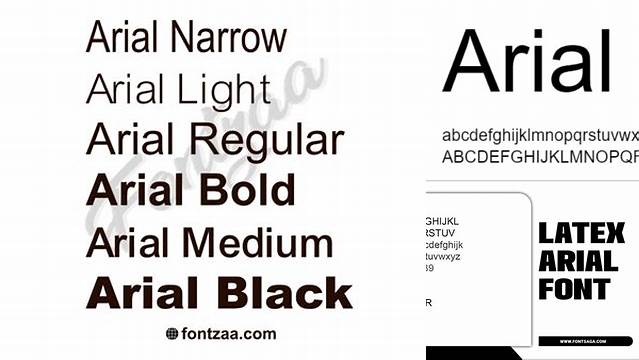
Arial Font: A Comprehensive Guide
Let's dive deep into the world of Arial font, guys! This typeface is a staple in the design world, and for good reason. It's versatile, legible, and widely available. But there's more to Arial than meets the eye. We're going to explore everything from its history and characteristics to its best uses and common alternatives. So, buckle up and get ready for a fontastic journey!
The History and Evolution of Arial
Understanding the history of Arial font helps us appreciate its design and context. Developed in 1982 by a team at Monotype, led by Robin Nicholas and Patricia Saunders, Arial was initially created as a system font for IBM's laser printers. The goal was to create a typeface that was metrically compatible with Helvetica, a popular and well-established font at the time. This compatibility allowed for easy document portability across different systems. However, Arial is not a direct copy of Helvetica; it possesses distinct characteristics that differentiate it, which we'll explore later. The evolution of Arial has seen it become a default font in many operating systems, making it one of the most ubiquitous typefaces in the world. Its journey from a system font to a design staple is a testament to its versatility and legibility.
Arial's Origins and Design Influences
The origins of Arial font are fascinating, and its design influences are rooted in the need for a functional and easily readable typeface. The designers drew inspiration from the neo-grotesque style, which is characterized by clean lines, uniform strokes, and a simple, sans-serif structure. This style was popular in the mid-20th century and was seen as a modern and efficient way to communicate visually. While Arial shares similarities with Helvetica, its design is unique, featuring subtle differences in letterforms and spacing. These nuances contribute to Arial's distinctive personality and impact its overall readability. Understanding these influences helps us appreciate the thought and effort that went into creating this ubiquitous font. The design brief emphasized clarity and neutrality, ensuring that Arial could be used in a wide range of applications without drawing undue attention to itself. This focus on functionality has contributed to Arial's enduring popularity.
Key Milestones in Arial's Development
The development of Arial font involved several key milestones that shaped its current form and widespread adoption. One of the earliest milestones was its inclusion as a system font in Windows 3.1 in 1992. This integration propelled Arial into the mainstream, making it accessible to millions of users worldwide. The font's compatibility with various operating systems and applications further solidified its position as a default choice for many designers and businesses. Over the years, Arial has been refined and expanded, with different weights and styles added to its family. These variations have increased its versatility, allowing it to be used in a broader range of design projects. From its initial creation for IBM laser printers to its current status as a ubiquitous typeface, Arial's journey is a story of adaptation and widespread acceptance. Each milestone has contributed to its legacy as a reliable and functional font.
From IBM to Microsoft: Arial's Rise to Prominence
Arial font's rise to prominence is closely tied to its adoption by major tech companies like IBM and Microsoft. Initially designed for IBM's laser printers, Arial gained significant traction when Microsoft licensed it as a system font for Windows. This strategic decision placed Arial in front of a massive user base, making it a default choice for word processing, web design, and other applications. Its inclusion in Microsoft Office further cemented its importance, as it became a standard option for creating documents and presentations. The font's availability across different platforms and software contributed to its widespread use. From business reports to personal letters, Arial became the go-to font for many. This journey from a relatively obscure typeface to a globally recognized font is a remarkable success story, driven by its functionality and accessibility.
Arial Font Characteristics and Features
Arial font has several distinct characteristics and features that contribute to its widespread use. Its clean, sans-serif design makes it highly legible, making it suitable for a variety of applications, from body text to headlines. The uniform stroke weight and simple letterforms ensure clarity and readability, even at smaller sizes. Arial's neutral appearance means it doesn't draw undue attention to itself, making it a versatile choice for projects where the content is the primary focus. The font family includes various weights and styles, such as bold, italic, and condensed, providing flexibility for different design needs. Understanding these characteristics helps designers make informed decisions about when and how to use Arial effectively. Its design is both functional and aesthetically pleasing, making it a reliable choice for a wide range of projects.
Distinguishing Features of Arial's Letterforms
To truly appreciate Arial font, it's essential to understand the distinguishing features of its letterforms. While often compared to Helvetica, Arial has unique characteristics that set it apart. For example, the terminals (the ends of the strokes) in Arial are often cut at an angle, while those in Helvetica are typically horizontal. The lowercase 'g' in Arial has a more open counter (the enclosed space within the letter) compared to Helvetica. These subtle differences contribute to Arial's overall appearance and readability. Examining the letterforms closely reveals the attention to detail in its design. The slight variations in shape and spacing impact the font's texture and visual rhythm. These nuances might seem minor, but they play a significant role in how the font is perceived and used. Designers often choose Arial for its clear and straightforward letterforms, which ensure legibility in various contexts.
Arial vs. Helvetica: Key Differences Explained
The debate between Arial font and Helvetica is a classic one in the design world. While they share many similarities, there are key differences that impact their suitability for different projects. Helvetica has a more uniform stroke weight and tighter spacing, giving it a more compact and solid appearance. Arial, on the other hand, has slightly wider proportions and angled terminals, which can make it appear more open and readable. Helvetica is often perceived as more sophisticated and refined, while Arial is seen as more utilitarian and straightforward. The choice between the two often comes down to personal preference and the specific requirements of the design project. Understanding these differences allows designers to make informed decisions about which font best suits their needs. Both fonts have their strengths and weaknesses, and knowing them can help in creating effective and visually appealing designs.
The Impact of Stroke Weight and Spacing in Arial
The stroke weight and spacing in Arial font play a crucial role in its overall appearance and readability. Arial's relatively uniform stroke weight contributes to its clean and consistent look. This consistency ensures that each letterform is clear and easily distinguishable, even at smaller sizes. The spacing between letters and words in Arial is designed to enhance readability, preventing the text from feeling too crowded or too sparse. This careful attention to spacing improves the reading experience, making it easier for the eye to track the text. The balance between stroke weight and spacing is a key factor in Arial's success as a versatile and legible typeface. Designers often appreciate Arial's well-proportioned spacing, which makes it suitable for both body text and headlines. These subtle design elements contribute to Arial's overall functionality and aesthetic appeal.
Best Uses for Arial Font
Arial font is incredibly versatile, making it suitable for a wide range of applications. Its clean and legible design makes it an excellent choice for body text in documents, websites, and print materials. Arial also works well for headlines and subheadings, providing clarity and readability. Its neutral appearance makes it a good option for projects where the content should take center stage, such as technical documents, reports, and presentations. Arial's availability across different platforms and software ensures consistency, making it a reliable choice for projects that need to be shared and viewed by a wide audience. Whether you're designing a website, creating a brochure, or writing a report, Arial is a font that you can count on to deliver clear and effective communication.
Arial in Body Text: Legibility and Readability
When it comes to body text, Arial font shines due to its legibility and readability. The clean, sans-serif design ensures that each letter is easily distinguishable, even at smaller font sizes. This clarity is crucial for maintaining readability in long blocks of text. Arial's uniform stroke weight and consistent letterforms contribute to a smooth reading experience, reducing eye strain and improving comprehension. Its neutral appearance means that it doesn't distract the reader from the content, allowing the message to come through clearly. Arial's widespread availability also makes it a practical choice for body text, ensuring that documents will display correctly across different devices and platforms. Whether you're writing a novel, creating a report, or designing a website, Arial is a reliable option for ensuring your text is easy to read.
Using Arial for Headlines and Subheadings
Arial font is also a strong contender for headlines and subheadings. Its clean and straightforward design makes it easily noticeable and readable, even at larger sizes. The various weights available in the Arial family, such as bold and black, provide options for creating emphasis and visual hierarchy. Arial's clarity ensures that headlines stand out without being overly distracting, maintaining a professional and polished look. Its versatility allows it to be paired with a variety of other fonts, making it a flexible choice for different design styles. Whether you're designing a poster, creating a presentation, or laying out a magazine, Arial can help you create clear and impactful headlines that capture the reader's attention. Its simplicity and readability make it a timeless choice for any heading needs.
Arial in Web Design: A Safe and Reliable Choice
In web design, Arial font is often considered a safe and reliable choice. Its widespread availability across different operating systems and browsers means that it's likely to display correctly for most users. This cross-platform compatibility is crucial for ensuring a consistent user experience. Arial's legibility and readability also make it well-suited for web content, where clarity is paramount. Its clean design ensures that text is easy to read on screens of various sizes and resolutions. While some designers might find Arial to be a bit bland, its neutrality can be an advantage, allowing the content and other design elements to take center stage. Whether you're designing a simple blog or a complex e-commerce site, Arial can provide a solid foundation for your typography. Its reliability and readability make it a go-to font for many web designers.
Print Design with Arial: Versatility in Action
Arial font's versatility extends to print design, where it performs admirably in a variety of applications. Its clean and legible design makes it suitable for everything from business cards and brochures to posters and books. Arial's various weights and styles provide flexibility for creating visual hierarchy and emphasis in print layouts. Its neutrality allows it to be paired with a wide range of other fonts and design elements, making it a versatile choice for different print projects. Whether you're designing a corporate report or a creative marketing campaign, Arial can help you achieve a professional and polished look. Its readability ensures that printed materials are easy to read and understand, regardless of the medium. Arial's enduring popularity in print design is a testament to its functionality and aesthetic appeal.
Arial Font Alternatives and Similar Typefaces
While Arial font is a solid choice, exploring alternatives and similar typefaces can enhance your design palette. Several fonts share characteristics with Arial, offering slight variations in style and appearance. Helvetica, as we've discussed, is a close relative, with a more refined and compact feel. Other alternatives include Univers, Swiss 721, and Frutiger, each with its own nuances. San Francisco, a system font designed by Apple, is another contemporary option with excellent legibility. Choosing an alternative depends on the specific needs of your project and the desired aesthetic. Sometimes a subtle change in typeface can make a significant difference in the overall look and feel of a design. Exploring different options allows you to find the perfect font for each project.
Helvetica: The Classic Alternative to Arial
Helvetica is often considered the classic alternative to Arial font, and for good reason. It's a highly respected typeface with a long history and a reputation for clarity and sophistication. Helvetica's uniform stroke weight and tight spacing give it a distinct appearance compared to Arial. Many designers prefer Helvetica for its clean lines and timeless aesthetic. While both fonts are sans-serif and highly legible, Helvetica often conveys a sense of elegance and professionalism. The choice between Arial and Helvetica often comes down to personal preference and the specific requirements of the project. Helvetica is a versatile font that works well in a variety of applications, from corporate branding to editorial design. Its enduring popularity is a testament to its quality and timeless appeal.
Univers: A Geometric Sans-Serif Option
Univers is another excellent alternative to Arial font, offering a more geometric and structured appearance. Designed by Adrian Frutiger, Univers is known for its clean lines and consistent proportions. Its systematic design approach provides a cohesive and harmonious look across different weights and styles. Univers is often used in corporate identity and branding projects, where its precision and clarity are highly valued. Its versatility makes it suitable for both text and display purposes. While Arial is more utilitarian, Univers has a more technical and precise feel. The choice between the two depends on the desired aesthetic and the specific needs of the project. Univers is a sophisticated and reliable typeface that can add a touch of modernity to any design.
Frutiger: Humanist Sans-Serif Choice
Frutiger is a humanist sans-serif typeface that provides a warmer and more approachable alternative to Arial font. Designed by Adrian Frutiger, the same designer as Univers, Frutiger is known for its excellent legibility and readability, particularly in signage and wayfinding systems. Its open letterforms and generous spacing make it easy to read from a distance. Frutiger has a more organic and friendly feel compared to Arial's more neutral appearance. Its humanistic qualities make it a good choice for projects that require a personal touch. While Arial is more commonly used in body text, Frutiger excels in display settings and environmental graphics. The distinct personality of Frutiger can add character and warmth to a design, making it a popular choice for a variety of applications.
Open Sans: A Modern and Open Alternative
Open Sans is a modern and open alternative to Arial font, designed by Steve Matteson. It's a humanist sans-serif typeface optimized for print, web, and mobile interfaces, making it a versatile choice for digital design. Open Sans has a neutral yet friendly appearance, with slightly wider proportions and open letterforms that enhance readability. It's a popular choice for website body text due to its clarity and legibility on screens. Open Sans is part of the Google Fonts library, making it easily accessible and free to use in a wide range of projects. Its clean and contemporary design makes it a good fit for modern websites and applications. While Arial is a reliable standby, Open Sans offers a fresh and updated look that can add a touch of modernity to any design.
Arial Font in Branding and Corporate Identity
Arial font has found its place in branding and corporate identity, offering a clean and professional look. Its neutrality makes it suitable for a wide range of industries and applications. Many companies choose Arial for its legibility and readability, ensuring that their brand message is communicated clearly. Arial's versatility allows it to be used in various branding materials, from logos and websites to brochures and business cards. While some might consider Arial to be a safe choice, its reliability and widespread availability make it a practical option for businesses of all sizes. The consistency provided by Arial can help maintain a unified brand image across different platforms and media. Arial's clean lines and straightforward appearance convey a sense of stability and trustworthiness, making it a popular choice for corporate communications.
Arial's Neutrality: A Benefit for Brand Communication
Arial font's neutrality is a significant benefit for brand communication. Its clean and unassuming design ensures that the font doesn't overshadow the brand's message. This neutrality allows the content and other design elements to take center stage, ensuring that the brand's voice is heard clearly. Arial's lack of strong personality means it can be adapted to fit a wide range of brand identities, from conservative to modern. Its legibility and readability are crucial for ensuring that the brand's message is easily understood by the target audience. Arial's neutrality also makes it a versatile choice for international branding, as it doesn't carry any cultural connotations that might be inappropriate in certain markets. Its straightforward appearance conveys professionalism and reliability, making it a solid choice for corporate communications.
Maintaining Brand Consistency with Arial
Maintaining brand consistency is crucial, and Arial font can be a valuable tool in achieving this goal. Its widespread availability ensures that the font will display correctly across different platforms and devices, maintaining a consistent look and feel for the brand. Arial's clean and legible design contributes to a professional and unified brand image. Its neutrality allows it to be used in various branding materials, from online to print, without clashing with other design elements. Using Arial consistently in all brand communications helps build brand recognition and reinforces the brand's identity. Its reliability and adaptability make it a practical choice for businesses that need to maintain a consistent brand presence across different channels. Arial's simplicity ensures that the brand's message is always clear and easily understood.
Arial in Logo Design: Considerations and Limitations
While Arial font can be used in logo design, there are considerations and limitations to keep in mind. Its neutrality and widespread use mean that it might not be the most unique or distinctive choice for a logo. A logo is a key element of a brand's identity, and it should stand out and be memorable. Arial's simplicity can be an advantage in some cases, but it might not be suitable for brands that want to convey a strong personality or unique identity. Designers often prefer more distinctive typefaces for logos, as they can help create a more memorable and impactful brand image. However, Arial can be a good option for companies that prioritize legibility and clarity in their logo. Its clean lines and straightforward appearance ensure that the logo is easily readable, even at small sizes. When using Arial in logo design, it's important to consider how it aligns with the brand's overall identity and messaging.
Typography Pairings: What Fonts Work Well with Arial?
Choosing the right typography pairings can enhance the overall design and readability of a project. Arial font pairs well with a variety of other typefaces, thanks to its neutrality. Serif fonts like Times New Roman, Georgia, and Merriweather can create a classic and sophisticated contrast with Arial. Sans-serif fonts like Open Sans, Lato, and Roboto offer a more contemporary and harmonious pairing. The choice of pairing depends on the desired aesthetic and the specific requirements of the project. A good typography pairing should create visual interest while maintaining legibility and readability. Arial's versatility allows it to be paired with both traditional and modern typefaces, making it a flexible choice for different design styles. Experimenting with different pairings can help you find the perfect combination for your project.
Arial Font Licensing and Availability
Understanding the licensing and availability of Arial font is crucial for ensuring its proper use in various projects. Arial is a proprietary font, meaning it's protected by copyright and requires a license for commercial use. However, it comes pre-installed on many operating systems, such as Windows and macOS, making it readily available for personal and professional use. This widespread availability has contributed to its popularity and ubiquity. When using Arial in commercial projects, it's important to ensure that you comply with the licensing terms. These terms typically allow for the use of the font in documents, websites, and other materials, but they may restrict certain uses, such as embedding the font in software applications. Understanding these limitations helps you avoid copyright infringement and ensure that you're using Arial legally and ethically. Arial's licensing model has contributed to its widespread adoption, making it a practical choice for businesses and individuals alike.
Arial's Status as a System Font
Arial font's status as a system font is a key factor in its widespread use and availability. Being pre-installed on major operating systems like Windows and macOS means that most users have Arial readily available on their computers. This accessibility makes it a reliable choice for projects that need to be shared and viewed across different platforms. The fact that Arial is a system font also means that it's less likely to be substituted with a different font when a document is opened on a different computer. This consistency is crucial for maintaining the intended design and layout of a project. Arial's status as a system font has made it a default choice for many users, contributing to its ubiquity in the design world. Its reliability and accessibility make it a practical choice for a wide range of applications.
Commercial Use of Arial: Licensing Considerations
When using Arial font for commercial purposes, it's important to consider the licensing terms. Arial is a proprietary font, and its use is subject to the terms outlined in the license agreement. Typically, the license allows for the use of Arial in documents, websites, and other materials created for commercial purposes. However, there may be restrictions on certain uses, such as embedding the font in software applications or redistributing it. It's crucial to review the licensing agreement to ensure that you're complying with the terms. Using Arial without the appropriate license can lead to legal issues and penalties. Understanding the licensing considerations helps you use Arial responsibly and ethically in your commercial projects. Arial's licensing model has contributed to its widespread adoption, but it's important to respect the rights of the font's creators and adhere to the licensing terms.
Alternatives for Free and Open-Source Projects
For free and open-source projects, there are several alternatives to Arial font that offer similar characteristics and functionality. Open Sans, Roboto, and Lato are popular choices that are freely available under open-source licenses. These fonts are designed to be highly legible and readable, making them suitable for a wide range of applications. They also offer good cross-platform compatibility, ensuring that they display correctly on different devices and operating systems. Using open-source fonts can be a good way to reduce costs and ensure that your project is accessible to a wide audience. These fonts also provide flexibility and freedom, as they can be modified and redistributed under the terms of their respective licenses. Choosing an open-source alternative to Arial can be a practical and ethical choice for projects that prioritize freedom and accessibility. Open Sans, Roboto, and Lato are all excellent options that offer similar qualities to Arial.
Where to Download Arial Font (Legally)
Since Arial font is a proprietary font, it doesn't have an official direct download link for legal reasons. However, Arial typically comes pre-installed with most operating systems like Windows and macOS. If you have a licensed version of these operating systems, you already have Arial available for use. For commercial projects, it's crucial to ensure you're using a licensed copy of the operating system to legally use Arial. There are also options to purchase licenses for Arial directly from font foundries, such as Monotype, if you need it for specific purposes like embedding in applications. Avoid downloading Arial from unofficial websites as these downloads may contain malware or violate copyright laws. Always ensure you're using fonts legally to support the designers and foundries that create them.
Common Misconceptions About Arial Font
There are several common misconceptions about Arial font that are worth addressing. One of the most prevalent misconceptions is that Arial is a direct copy of Helvetica. While they share similarities, Arial has distinct characteristics that set it apart. Another misconception is that Arial is a less professional or less desirable font compared to Helvetica. While Helvetica is often perceived as more sophisticated, Arial is a highly functional and legible typeface that is suitable for a wide range of applications. Some designers also believe that Arial is overused and should be avoided, but its widespread availability and legibility make it a practical choice for many projects. Understanding these misconceptions helps you make informed decisions about when and how to use Arial effectively. Its enduring popularity is a testament to its functionality and versatility, despite these misconceptions.
Is Arial Just a Knock-off of Helvetica?
One of the most common misconceptions is that Arial font is simply a knock-off of Helvetica. While Arial was designed to be metrically compatible with Helvetica, it is not a direct copy. There are subtle but significant differences in the letterforms and spacing that distinguish the two typefaces. For example, the terminals of Arial's strokes are often cut at an angle, while Helvetica's terminals are typically horizontal. Arial also has a slightly wider proportion and a more open feel compared to Helvetica's more compact design. While Helvetica is often perceived as more refined and sophisticated, Arial has its own unique characteristics and strengths. Understanding these differences helps dispel the myth that Arial is just a cheap imitation of Helvetica. Both fonts have their place in the design world, and the choice between them often comes down to personal preference and the specific requirements of the project.
Is Arial an Overused and Outdated Font?
Another common misconception is that Arial font is overused and outdated. While it's true that Arial is a widely used typeface, its ubiquity doesn't necessarily mean it's outdated or undesirable. Arial's legibility and readability make it a practical choice for many applications, and its neutrality allows it to be used in a variety of design styles. While some designers prefer more unique or distinctive fonts, Arial's reliability and widespread availability make it a solid option for projects that need to be shared and viewed across different platforms. Overuse can be a concern with any font, but Arial's versatility and functionality ensure that it remains a relevant choice in the design world. The key is to use it thoughtfully and in the appropriate context, rather than dismissing it outright as an outdated option. Its simplicity and clarity continue to make it a valuable tool for effective communication.
Arial's Perceived Lack of Personality
One of the criticisms often leveled against Arial font is its perceived lack of personality. Compared to more distinctive typefaces, Arial's neutrality can be seen as a drawback. However, this neutrality can also be a strength, as it allows the font to blend seamlessly into a variety of designs without drawing undue attention to itself. Arial's lack of strong personality makes it a versatile choice for projects where the content is the primary focus. Its clean and straightforward appearance conveys professionalism and reliability, making it suitable for corporate communications and other formal applications. While some designers prefer fonts with more character, Arial's neutrality ensures that it doesn't clash with other design elements. This lack of personality can be an advantage in situations where clarity and legibility are paramount. Arial's simplicity is a testament to its functionality and versatility.
The Future of Arial: Will It Remain Relevant?
Looking to the future, the question of Arial font's continued relevance is an interesting one. While design trends may shift and new typefaces may emerge, Arial's enduring qualities of legibility, readability, and widespread availability suggest that it will remain a valuable tool for designers and communicators. Its neutrality and versatility ensure that it can adapt to changing design styles, and its status as a system font means it will continue to be readily accessible. While some might argue that more distinctive typefaces are preferable for certain projects, Arial's reliability and functionality make it a practical choice for a wide range of applications. The future of Arial is likely to be one of continued use, albeit perhaps with a more nuanced understanding of its strengths and limitations. Its enduring qualities ensure that it will remain a relevant option for effective communication in the years to come.
In conclusion, Arial font is a workhorse typeface that has earned its place in the design world. Its history, characteristics, and versatility make it a valuable tool for a variety of projects. While it may not be the most exciting or distinctive font, its reliability and legibility ensure that it will continue to be a go-to choice for many designers and communicators. So, the next time you're choosing a font, don't overlook Arial – it might just be the perfect fit for your needs!